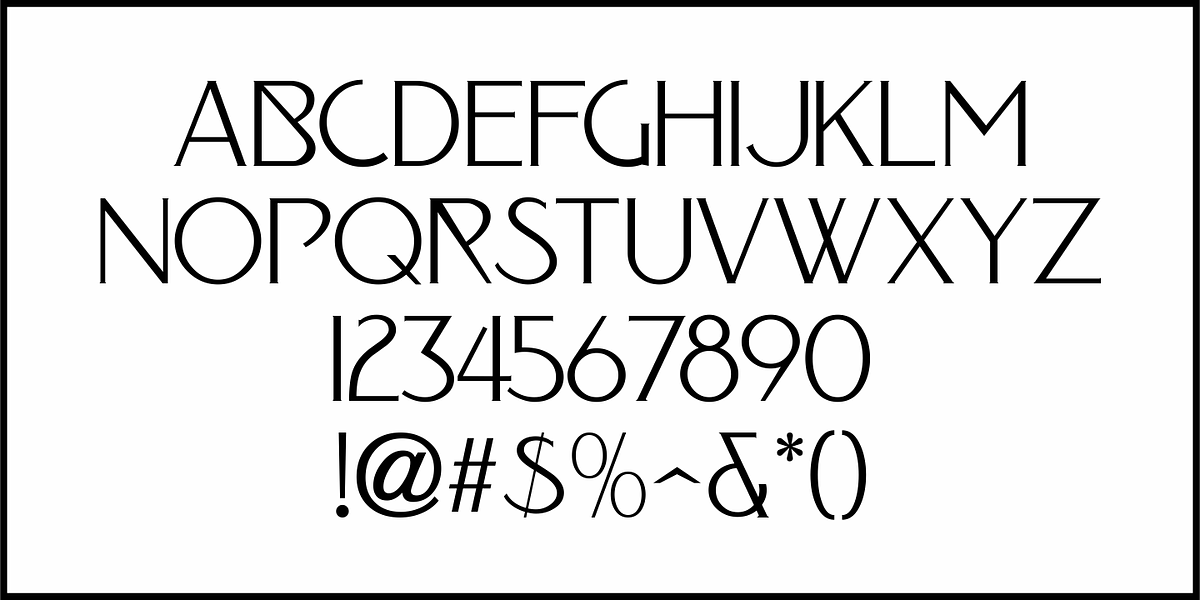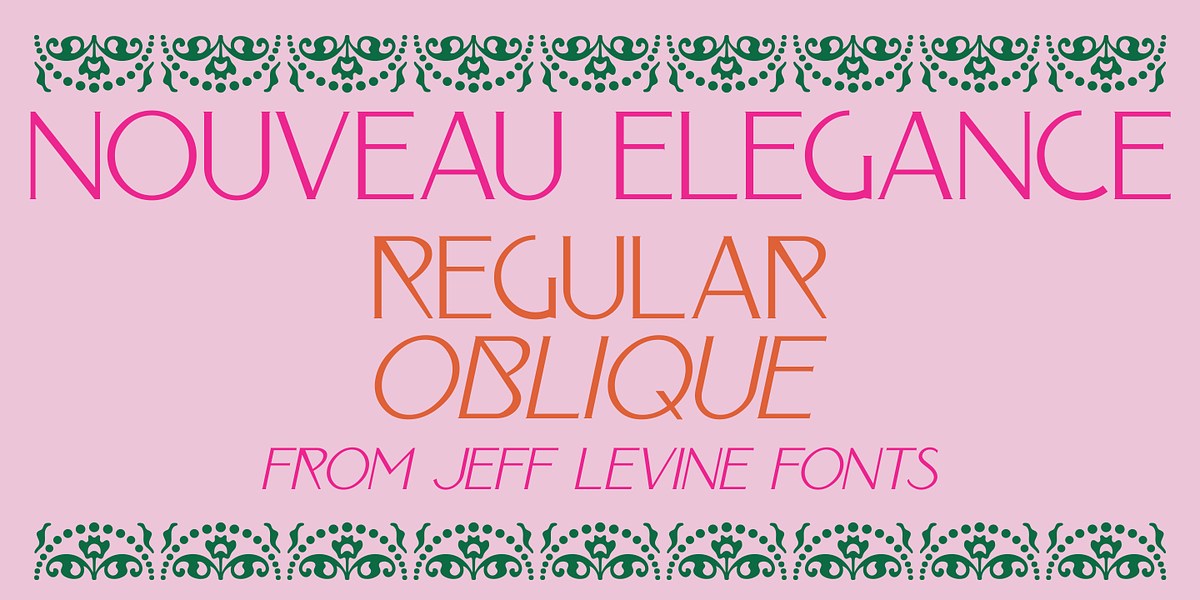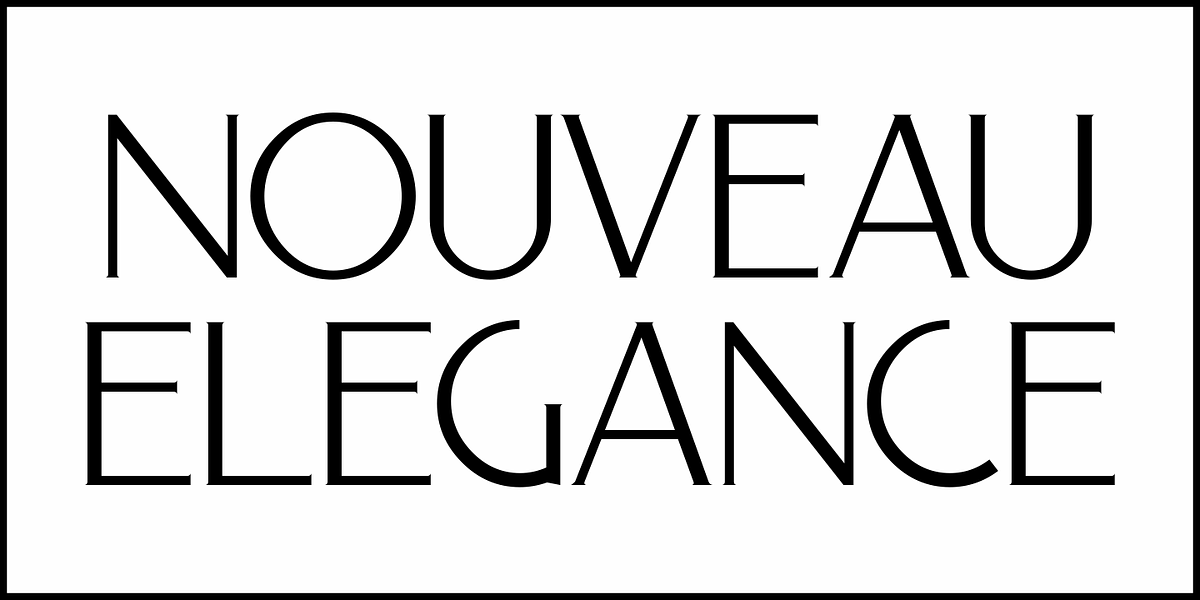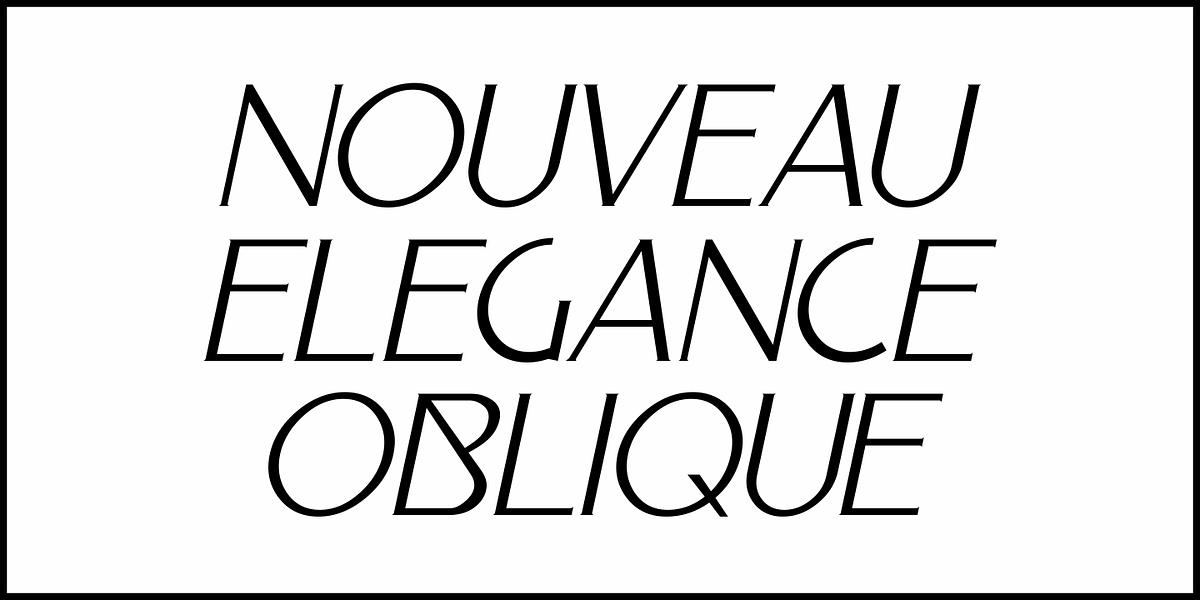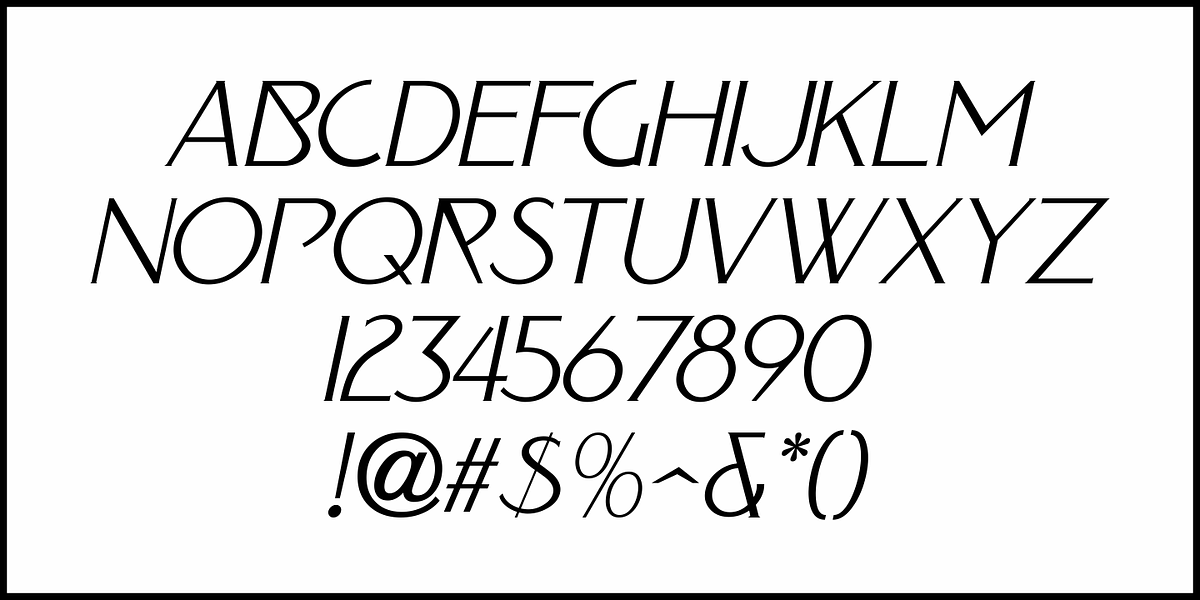
Nouveau Elegance JNL
The gently spurred serif hand lettering found on an advertisement for Berkshire Stockings (circa the 1920s) was the inspiration for Nouveau Elegance JNL, which is available in both regular and oblique versions.